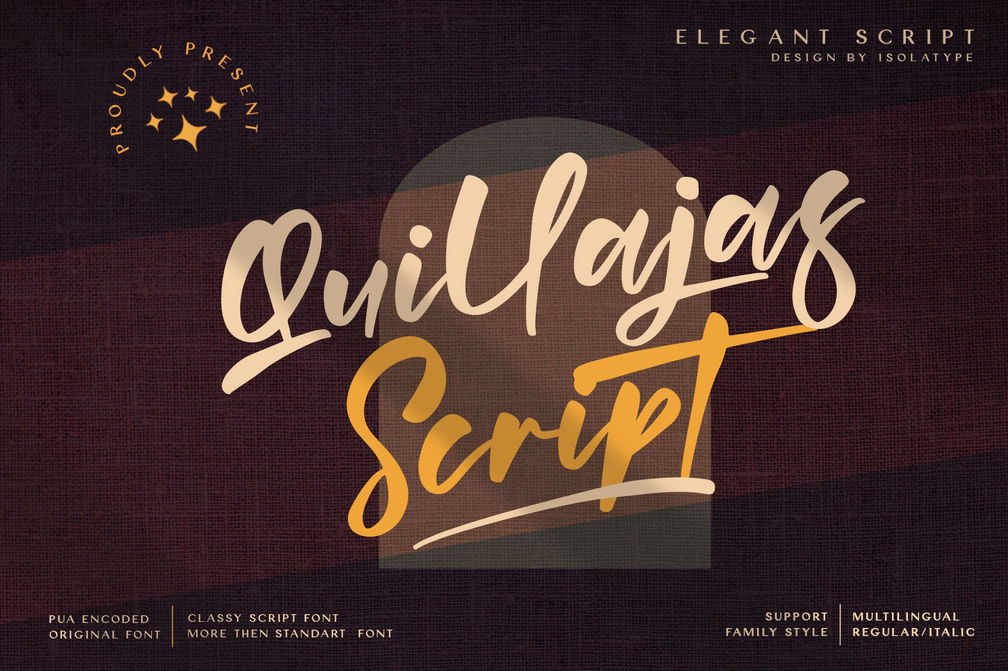
Quillajas Script
Quillajas Script is a brushed, elegant and flowing handwritten font. It has beautiful and well balanced characters and as a result, it matches a wide pool of designs. Add it to your most creative ideas and notice how it makes them come alive!